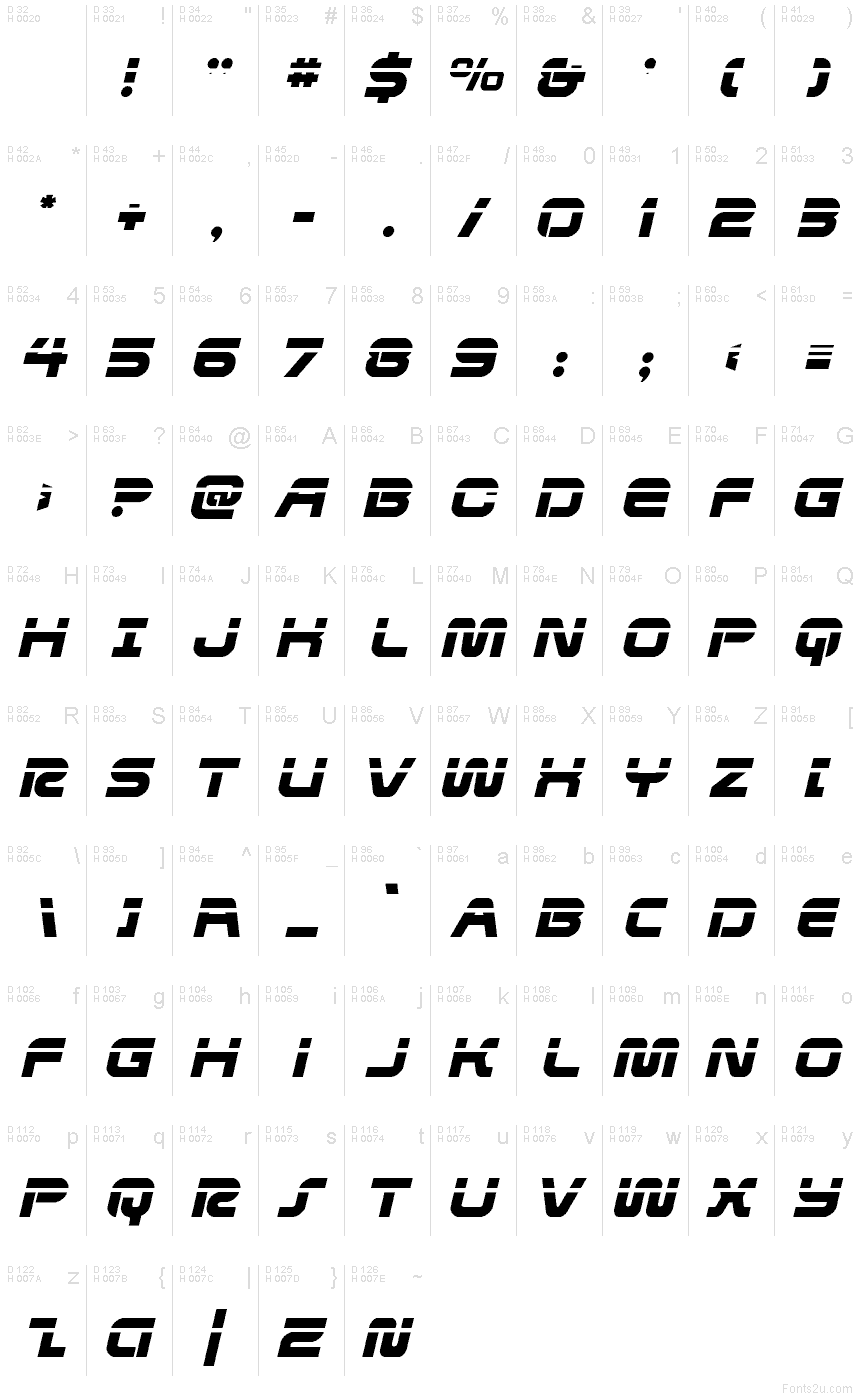
Rocket Command Laser Italic
Rocket Command Laser Italic font by Iconian Fonts is a striking futuristic display typeface, expanded in its design yet with an angular, geometric style. Retro and high-energy in its delivery, this font blends modern power with nostalgia in a bold manner that will grab attention. Get noticed instantly when you use it for your artwork’s typography.
This free unique no serif font is fitting for games titles, header texts, and posters. Its memorable nature is exceptional for album covers and book covers while being applicable as well in flyers and branding campaigns like those of sports teams, motorcycles manufacturers logos, or advertising for celebrity shows or exhibitions.